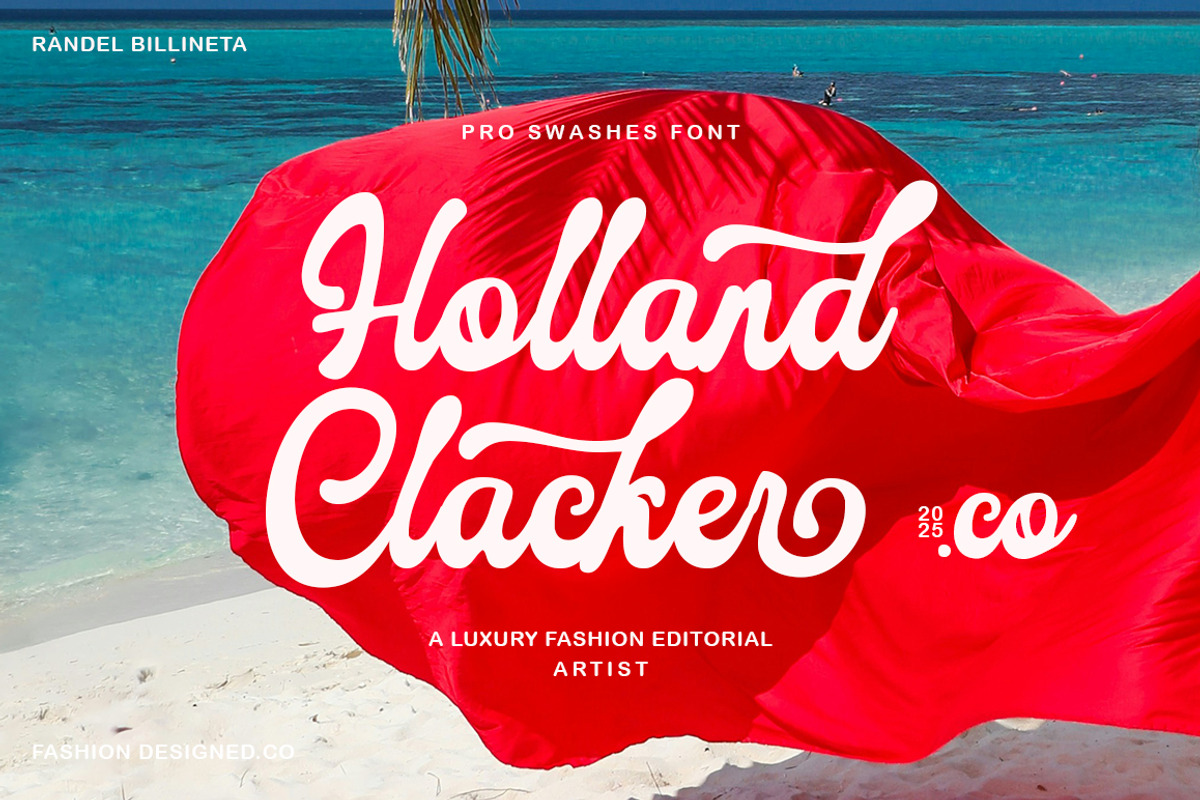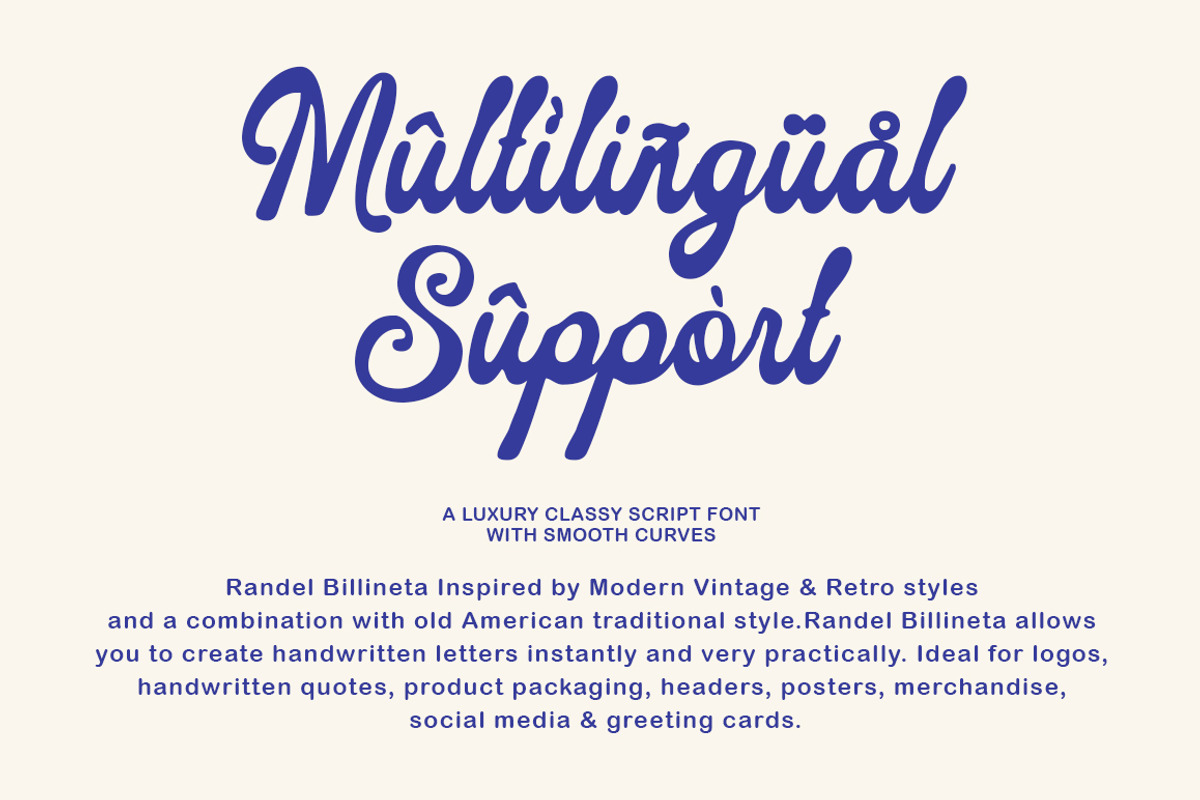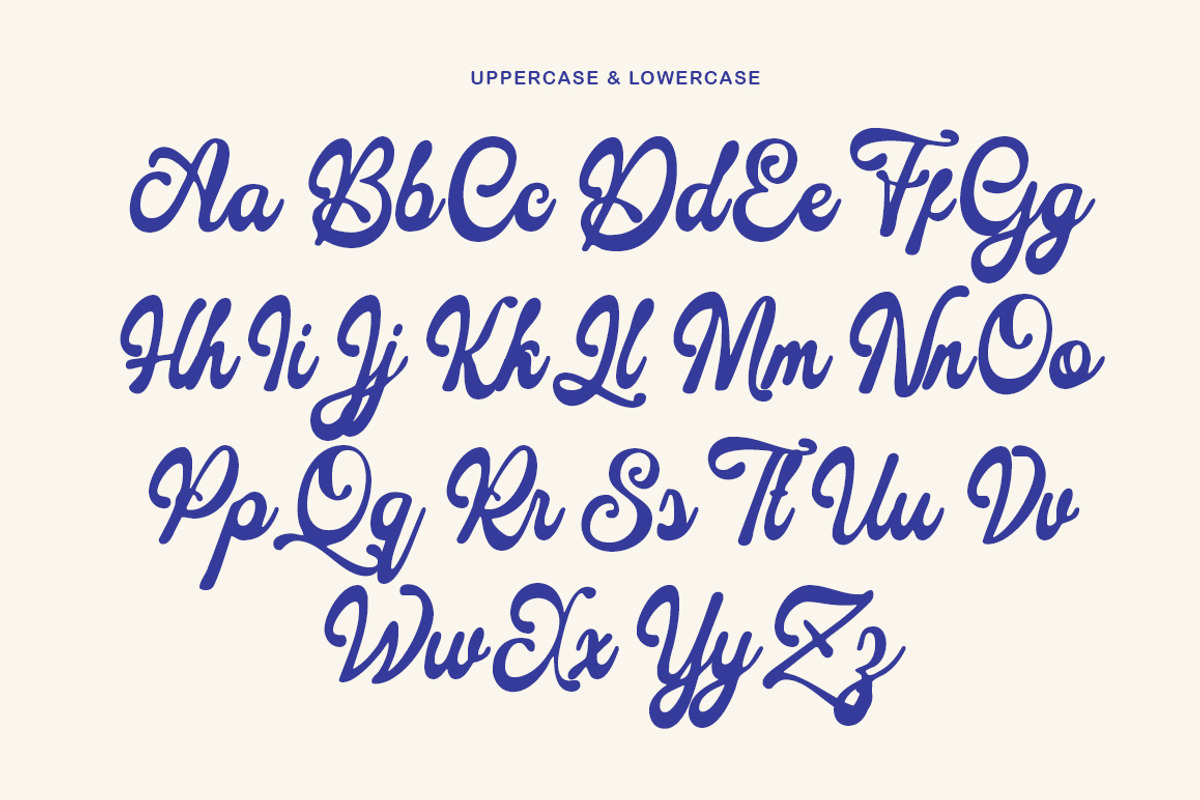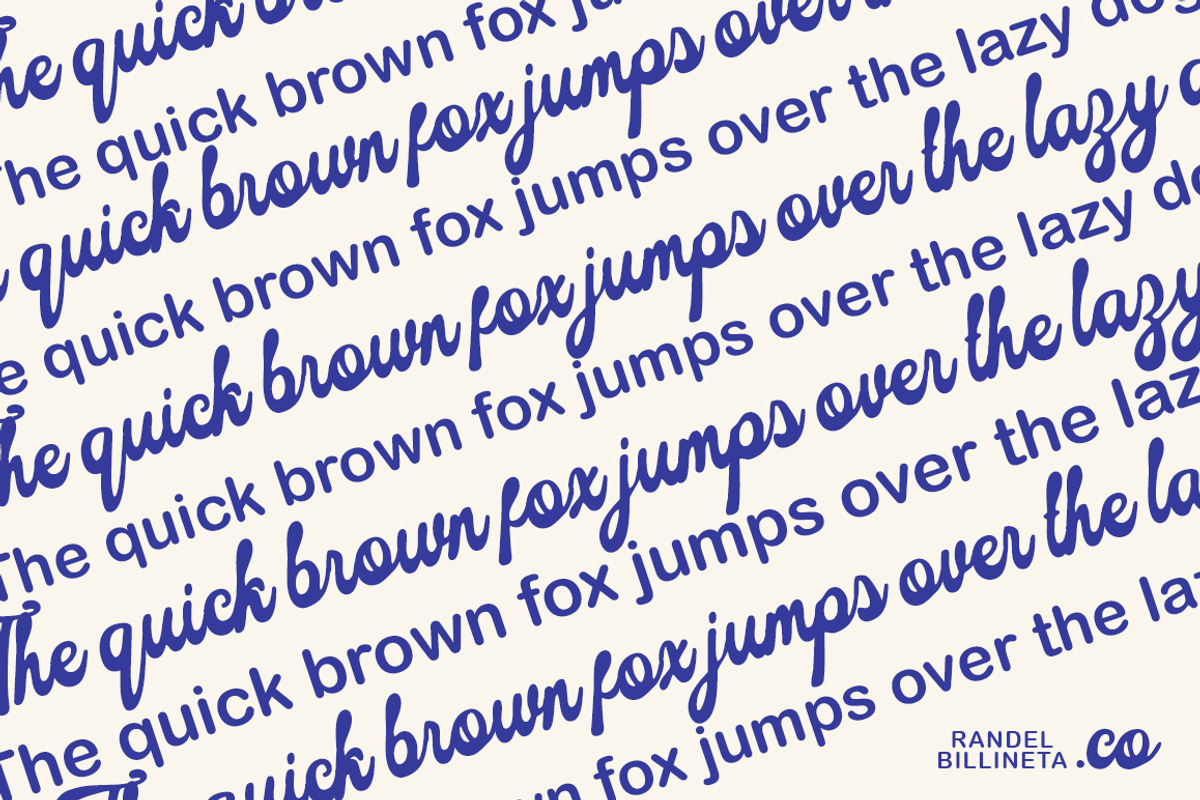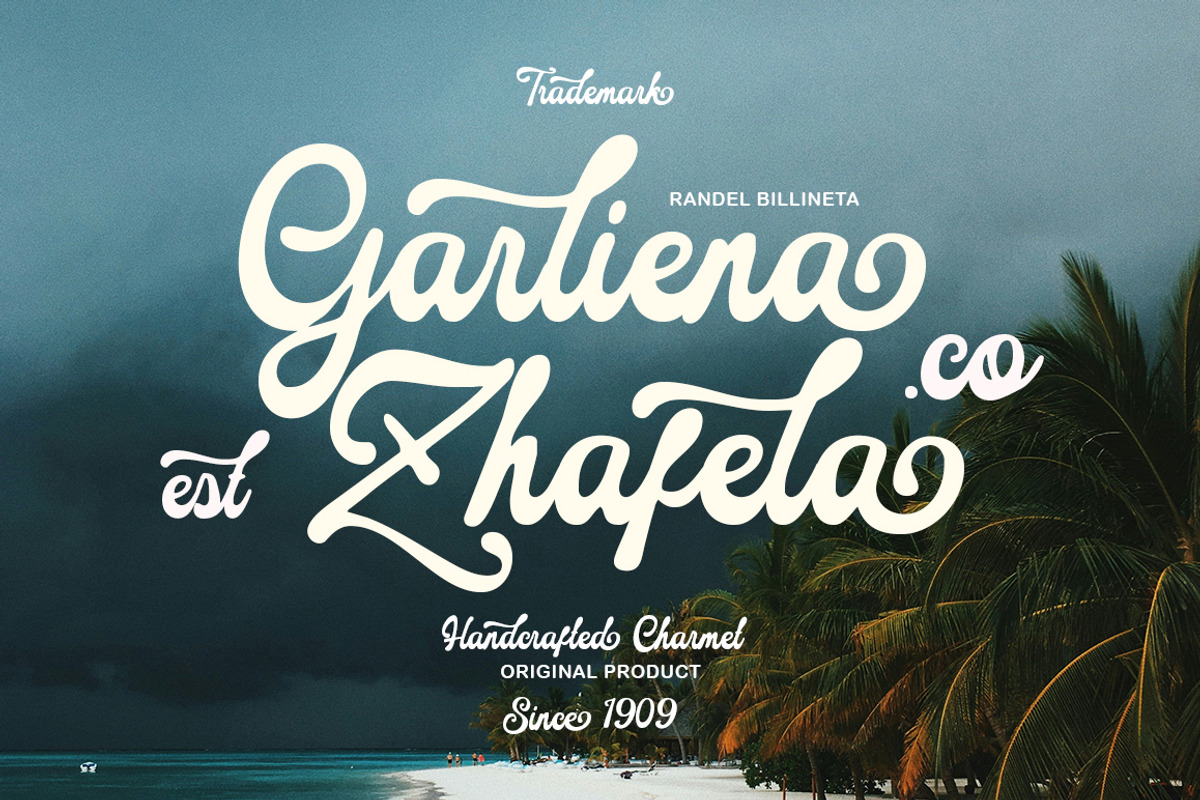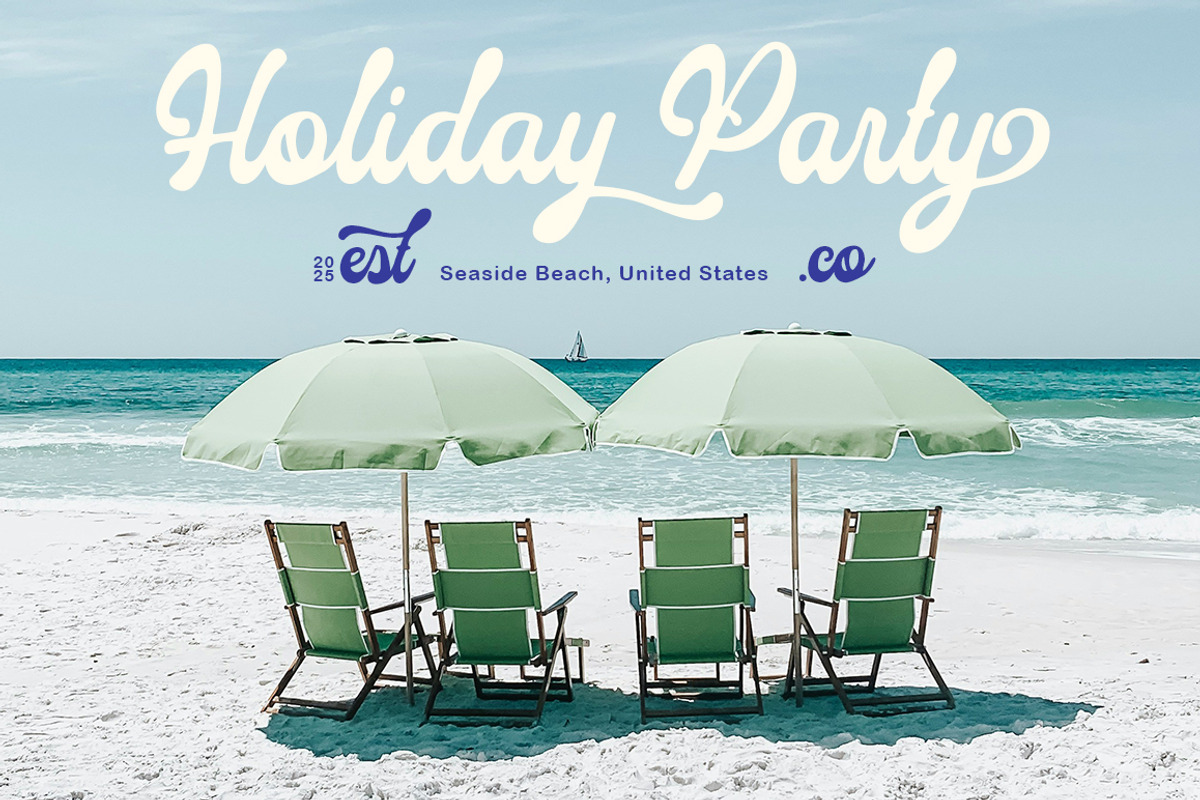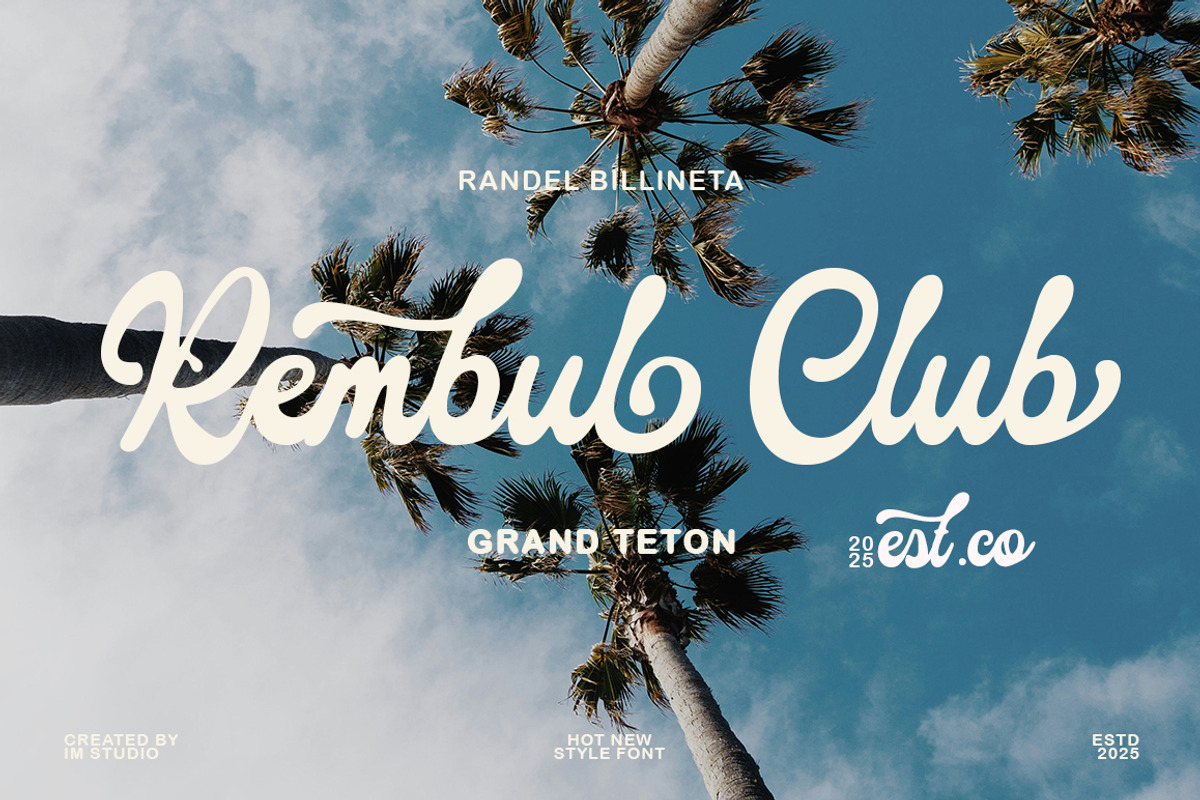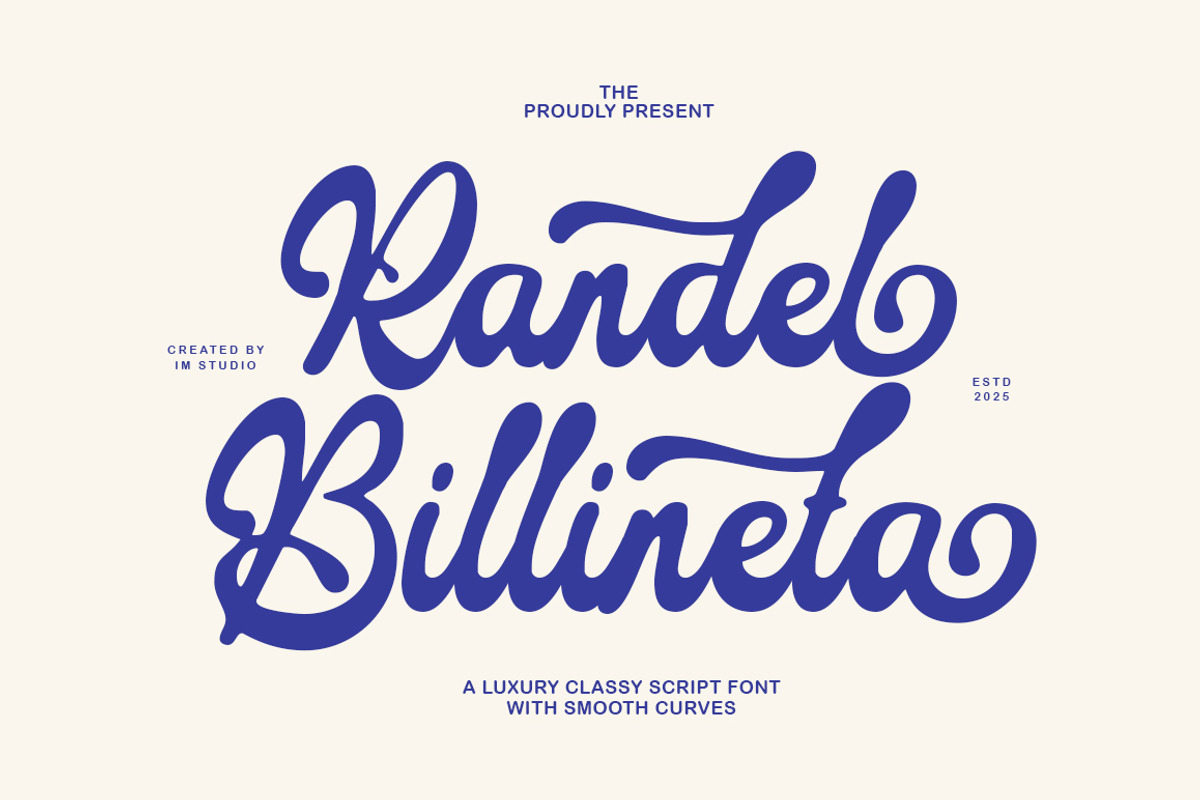
Randel Billineta Script
Randel Billineta Inspired by Modern Vintage & Retro style and combination with old American traditional style. Randel Billineta allows you to create handwritten letters instantly and very practically. Ideal for logos, handwritten quotes, product packaging, headers, posters, merchandise, social media & greeting cards.